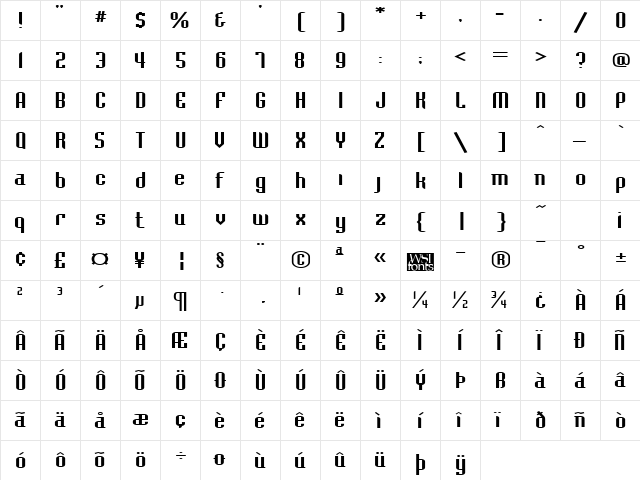
BaccusExpanded Regular Font Preview
BaccusExpanded Regular
Design Context for BaccusExpanded Typeface
BaccusExpanded offers clean, dependable letterforms without strong stylistic allegiance, making it a practical choice for designers who need flexibility.